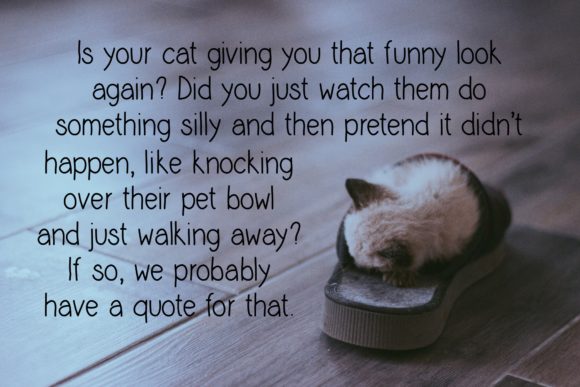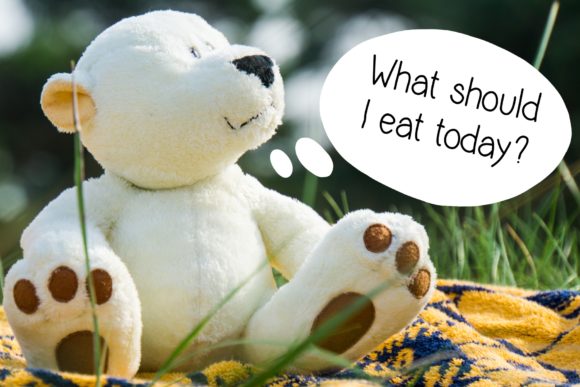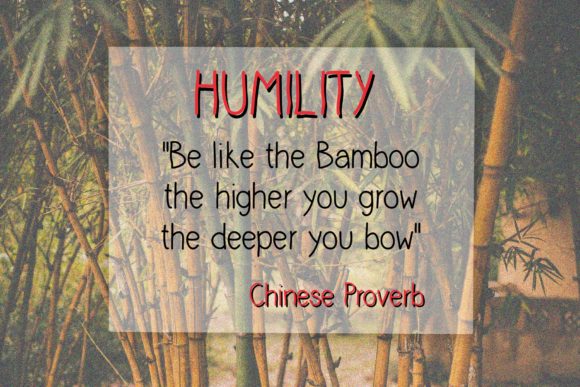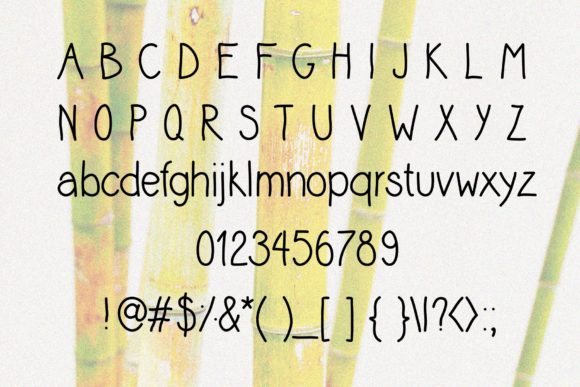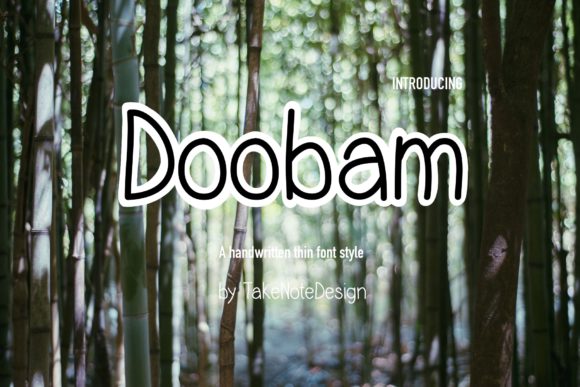
Discover the Elegance of Doobam Font: A Thin and Simple Handwritten Marvel
In the vast universe of typography, fonts play a pivotal role in bringing designs to life. Among the myriad of fonts available, Doobam stands out for its unique blend of simplicity and elegance. Described as a thin and simple handwritten font, Doobam offers a natural and distinctive style that can seamlessly integrate into a wide array of design projects. Whether you’re a professional designer or a crafting enthusiast, Doobam is a versatile tool that can elevate your creations to new heights.
The Characteristics of Doobam Font
Doobam’s primary charm lies in its thin and simple structure. Unlike bold and complex fonts that can overwhelm a design, Doobam provides a subtle yet impactful presence. Its handwritten nature gives it a personal and approachable feel, making it ideal for projects that require a touch of warmth and intimacy.
• Thin and Simple: The font’s slender lines and uncomplicated design make it highly legible, even at smaller sizes. This feature is particularly beneficial for designs that require a lot of text, as it ensures that the content remains clear and easy to read.
• Handwritten Style: The organic and fluid strokes of Doobam give it a unique character that can add a personal touch to any design. This handwritten quality makes it perfect for projects that aim to convey a sense of authenticity and emotion.
• Versatility: One of the most significant advantages of Doobam is its versatility. Its neutral yet distinctive style allows it to fit into a broad spectrum of design themes, from modern and minimalist to vintage and whimsical.
Applications of Doobam Font
The adaptability of Doobam makes it suitable for a variety of applications. Here are some areas where Doobam can truly shine:
• Branding and Logos: For businesses looking to establish a brand identity that is both elegant and approachable, Doobam can be a fantastic choice. Its simplicity and uniqueness can help create a memorable logo that stands out.
• Digital and Print Media: Whether you’re designing a website, a brochure, or a poster, Doobam’s readability and aesthetic appeal make it an excellent option. It can be used for headings, body text, or even captions, adding a consistent and professional look to your materials.
• Crafting and DIY Projects: For crafters and DIY enthusiasts, Doobam can add a personalized touch to handmade cards, invitations, and other creative projects. Its handwritten feel can make your crafts stand out and give them a more bespoke appeal.
• Social Media Graphics: In the realm of social media, standing out is crucial. Doobam can help you create engaging and visually appealing graphics for posts, stories, and banners, making your content more attractive to your audience.
Tips for Using Doobam Font Effectively
To make the most of Doobam, consider the following tips:
• Mix and Match: Don’t be afraid to combine Doobam with other fonts to create visual interest. Its simplicity makes it a great base that can be paired with more decorative fonts for headings or highlights.
• Play with Sizes: Experimenting with different sizes can help you emphasize certain parts of your design. For instance, using a larger size for headings and a smaller size for body text can create a clear hierarchy.
• Color Matters: Choose colors that complement the tone of your design. Doobam works well with a variety of color schemes, but ensuring that the text color contrasts well with the background is essential for readability.
Font Name Doobam Font
Author DREAMs Soul G.
Doobam font is a remarkable addition to any designer’s or crafter’s toolkit. Its thin and simple yet uniquely handwritten style offers a world of creative possibilities. With its versatility, readability, and aesthetic appeal, Doobam can bring a touch of elegance and personality to a wide range of projects. So, don’t let your imagination be limited – explore the potential of Doobam and let it inspire your next design masterpiece!